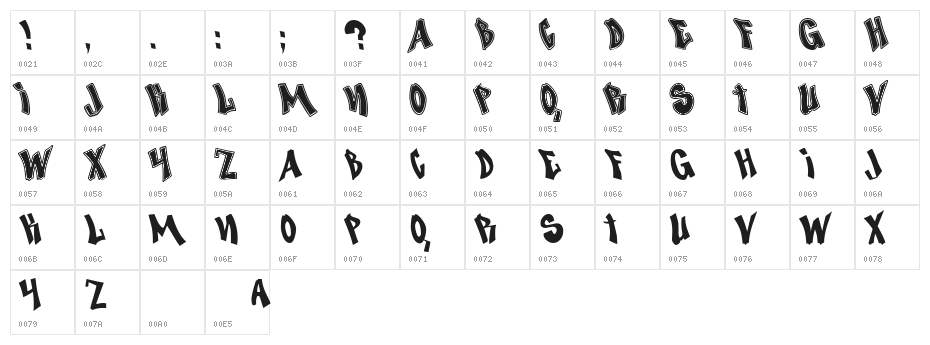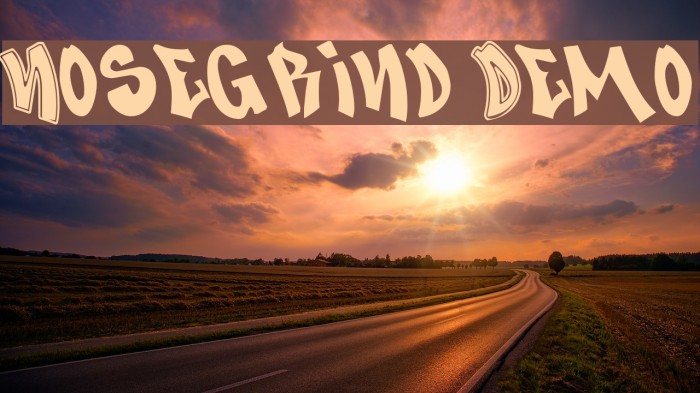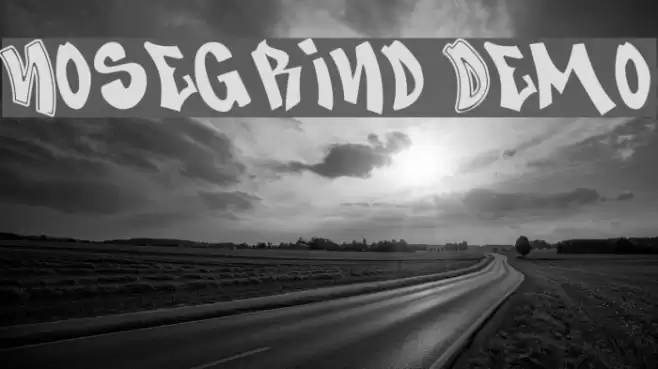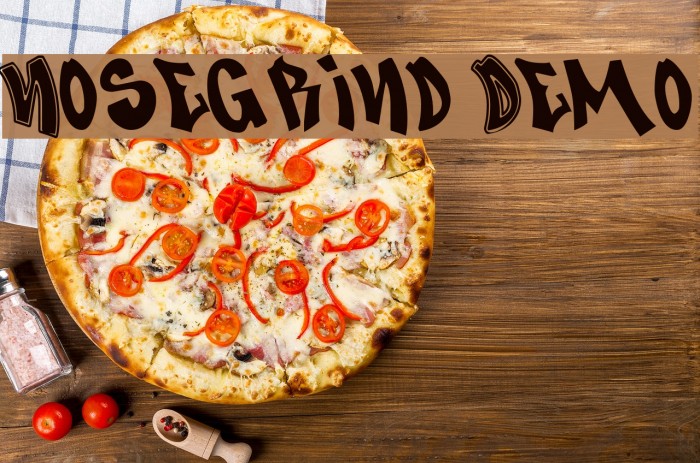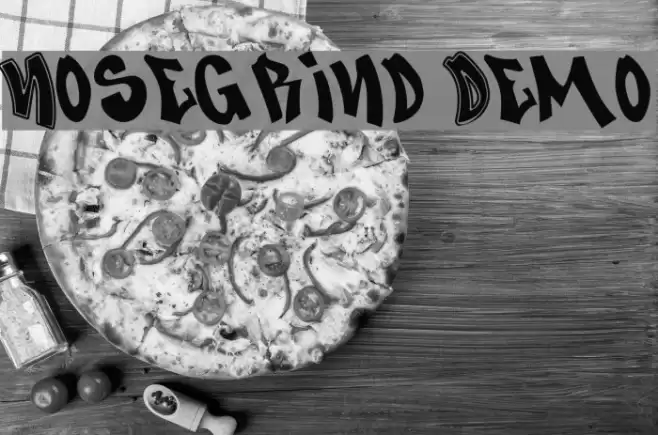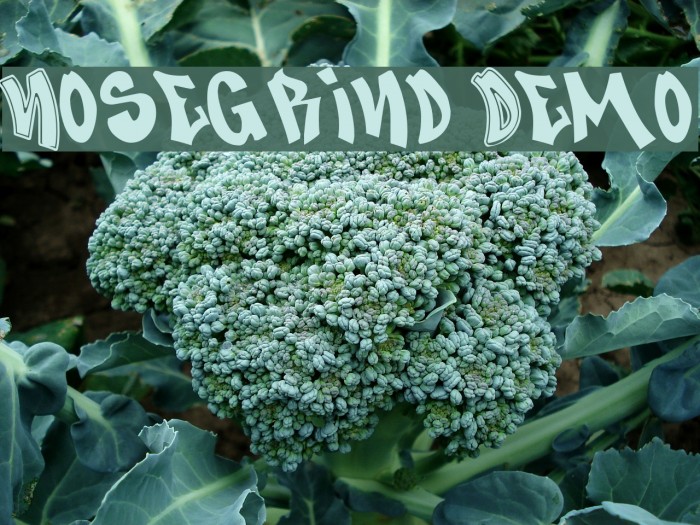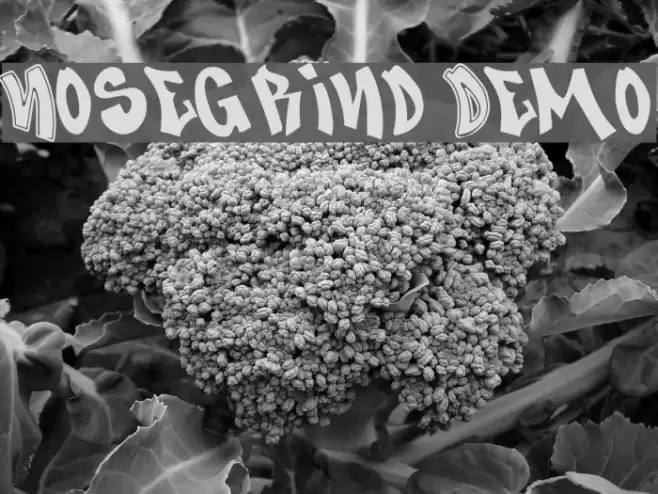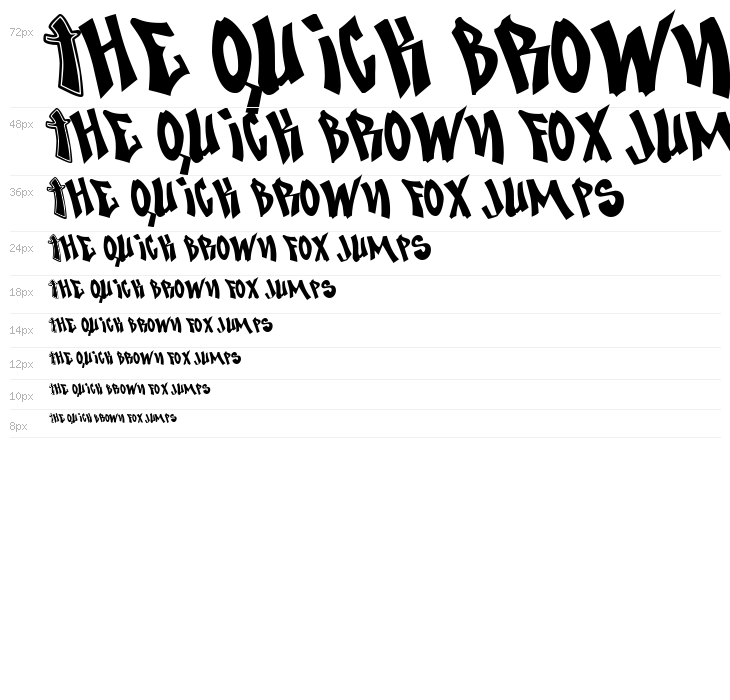
Nosegrind Demo Font
Nosegrind Demo Description
This font features a bold and dynamic style, characterized by its sharp, angular lines and exaggerated curves. The uppercase letters are particularly striking, with a graffiti-like appearance that suggests movement and energy. The lowercase letters maintain this boldness, offering a consistent aesthetic throughout the typeface. The numbers and special characters follow the same design principles, ensuring a cohesive look. This font's unique style makes it ideal for projects that require a strong visual impact.
| Proposed Projects | Perfect for street art designs, urban-themed posters, edgy branding, and music album covers. |